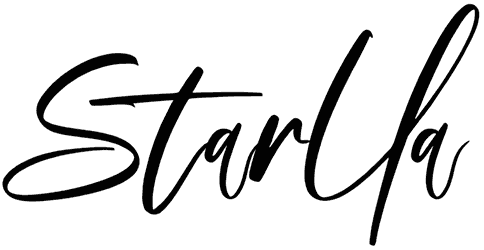
Starlla Font
To better demonstrate the organic look of your artwork, you want to try a handwriting font. Starlla is one of our options for you to bring a natural tone to your work.